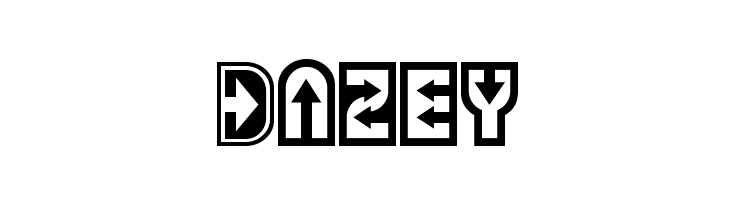
A bold, geometric stencil font with a modern industrial feel.
( Fonts by Daniel Martos )
A bold, geometric font with angular, blocky characters.
( www.drx-design.nl )
A bold, geometric font with sharp angles and a futuristic style.
( Fonts by greenegg )
A geometric and angular font with a modern, futuristic style.